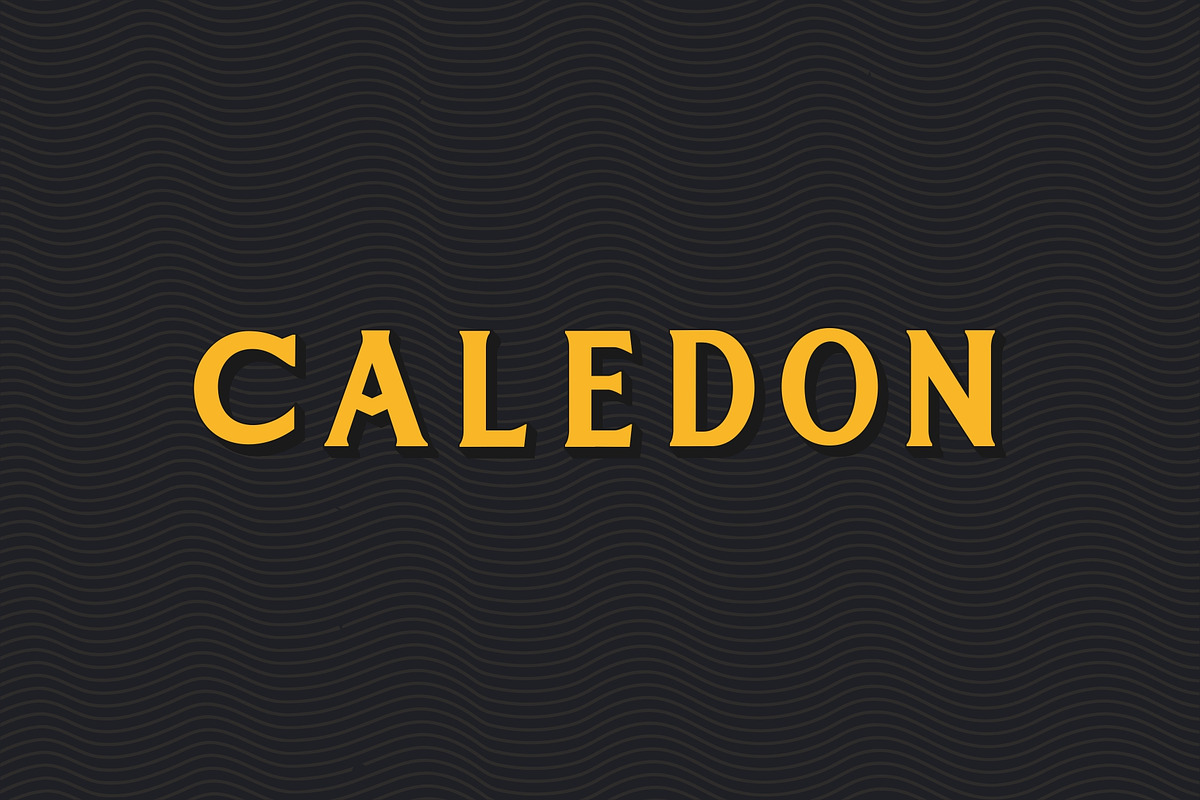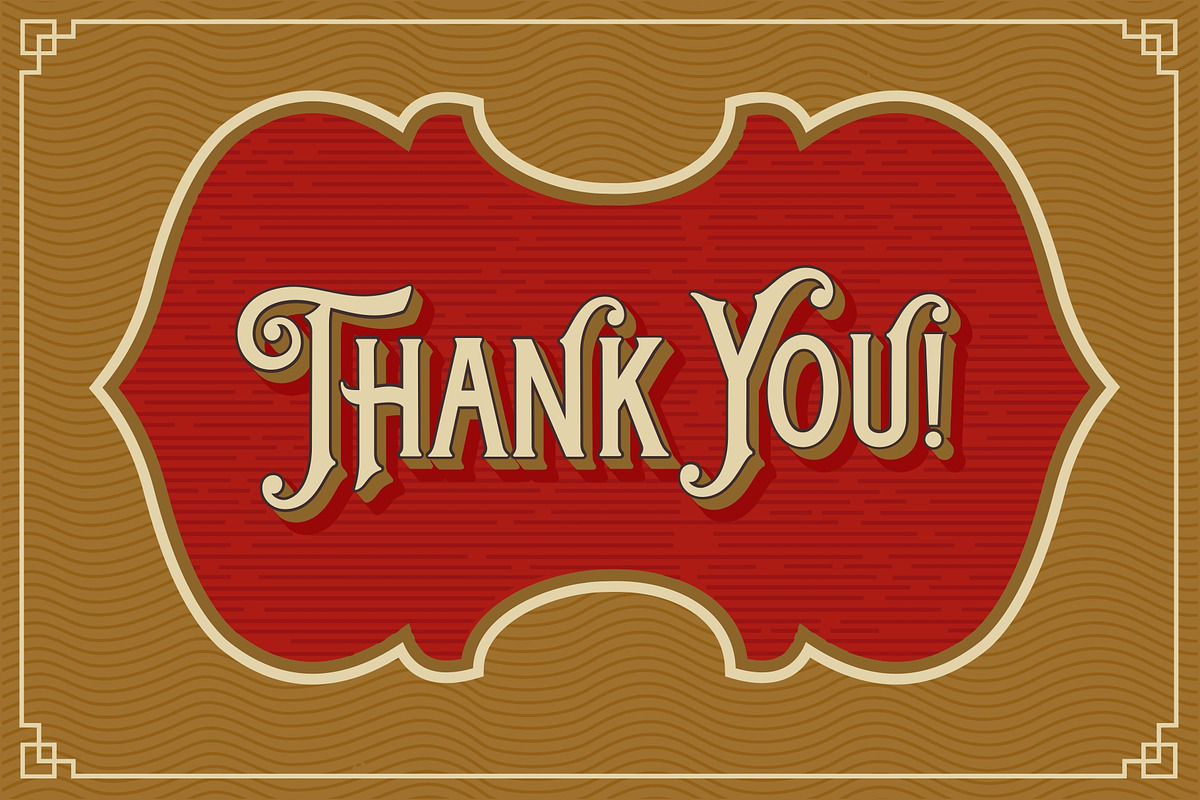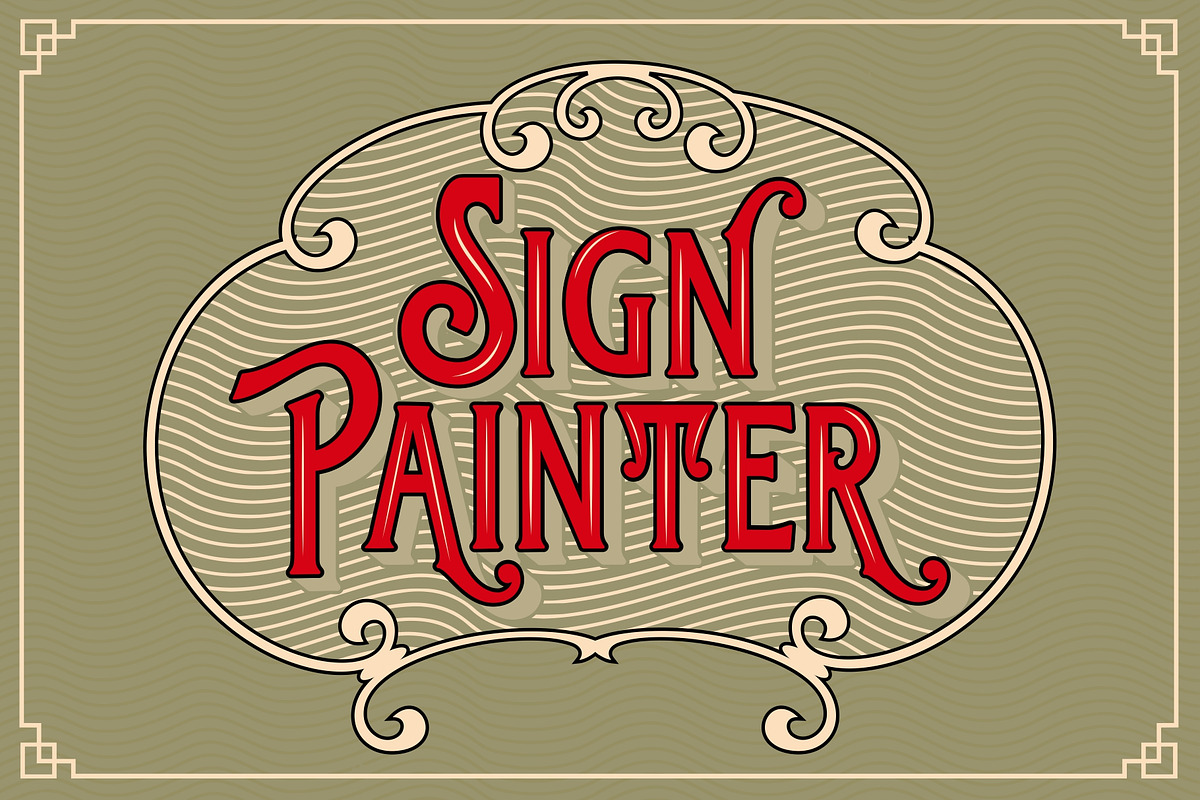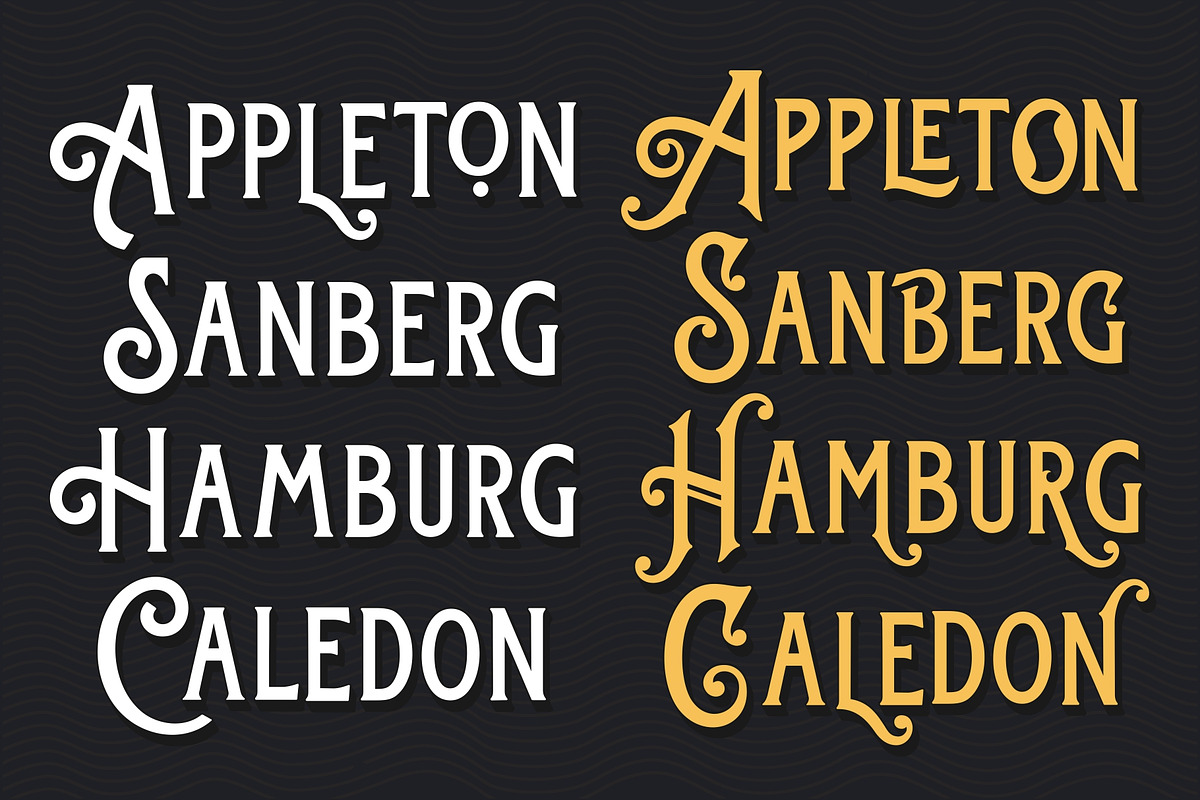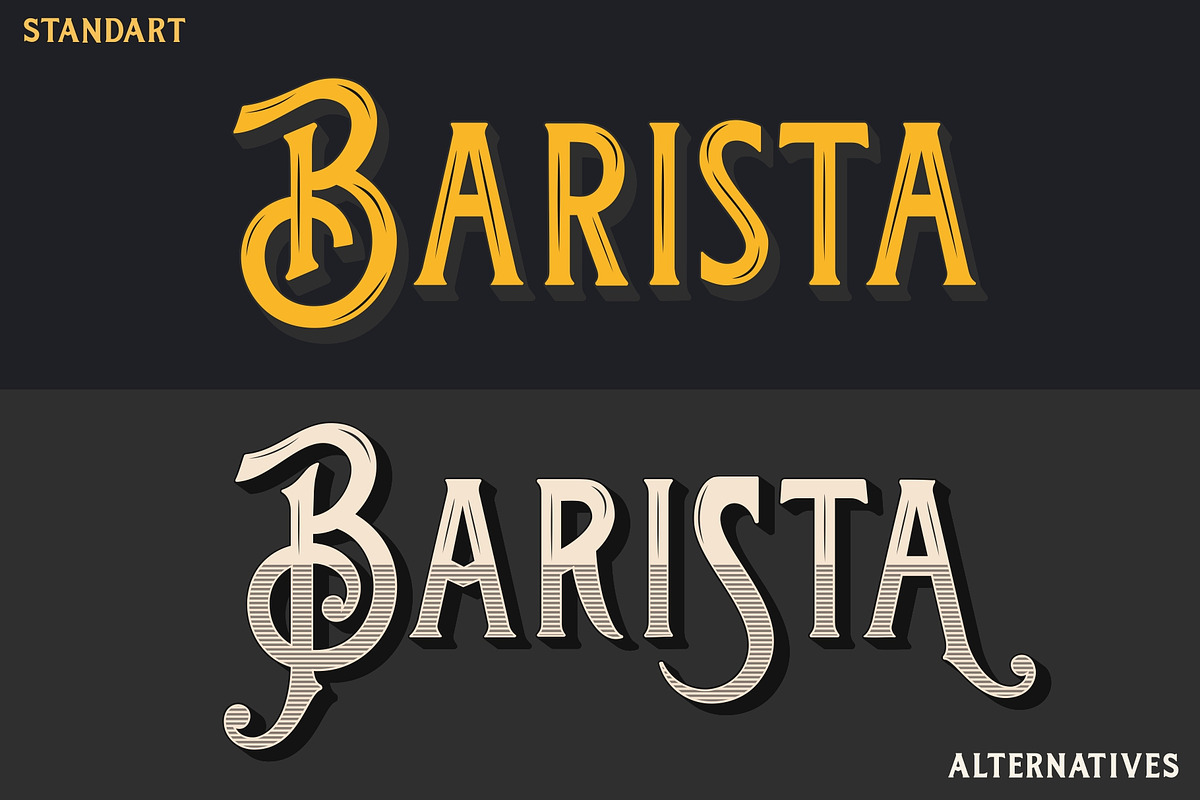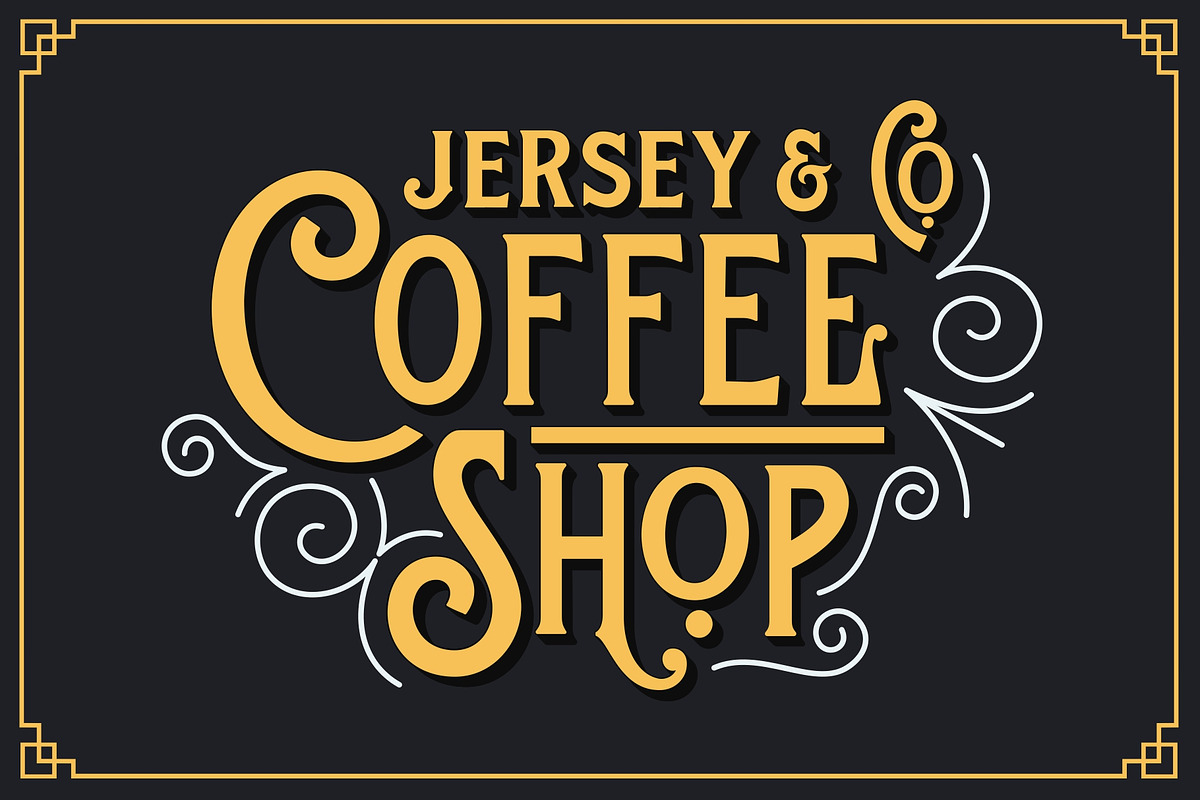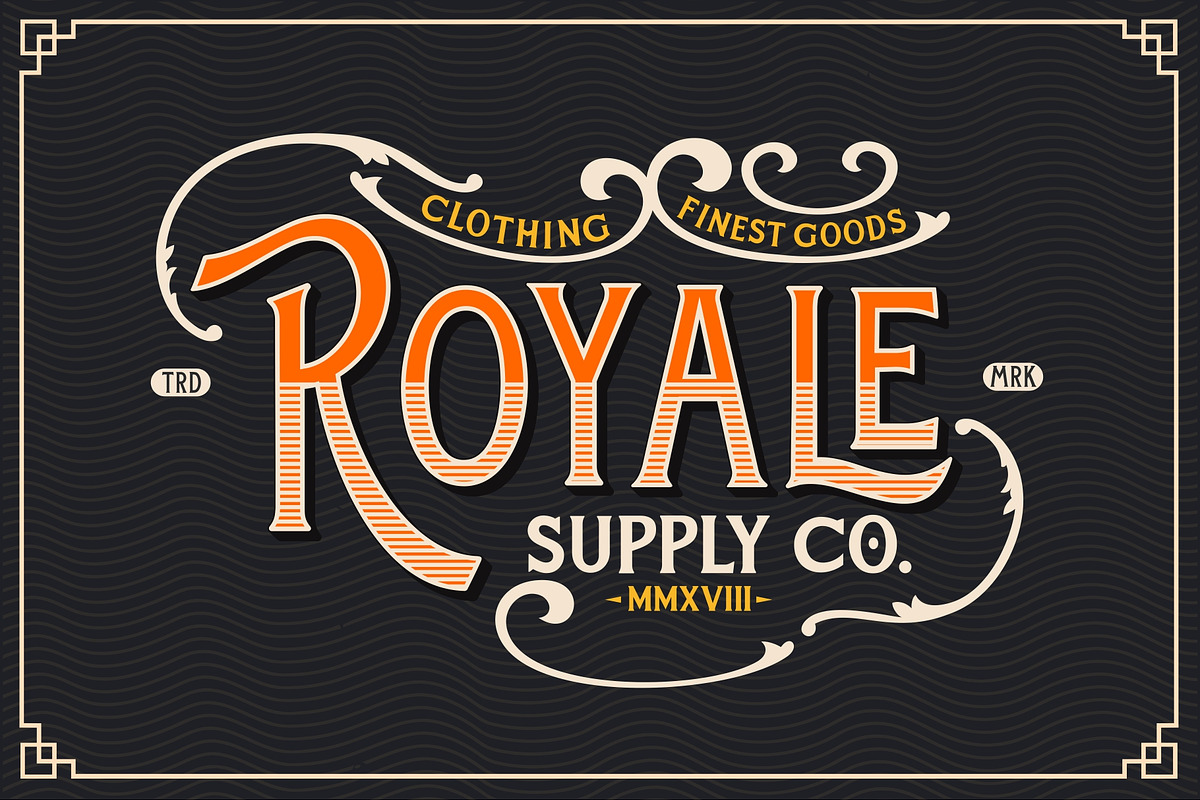
Lambreta Font Duo
Lambreta Font & Caledon Font was inspired by labels found on some vintage packaging items, Lambreta is very suitable for a logo design, like vintage logo design, Poster, Label, wedding card logo, clothing brand logo and much more.
Lambreta glyph consists of 322 glyphs, including many alternate choices of characters, including the stylistic alternates,ss01-03, Discretionary Ligatures etc. Making it easier for you in fine-tuning and perfecting the design you are working on.